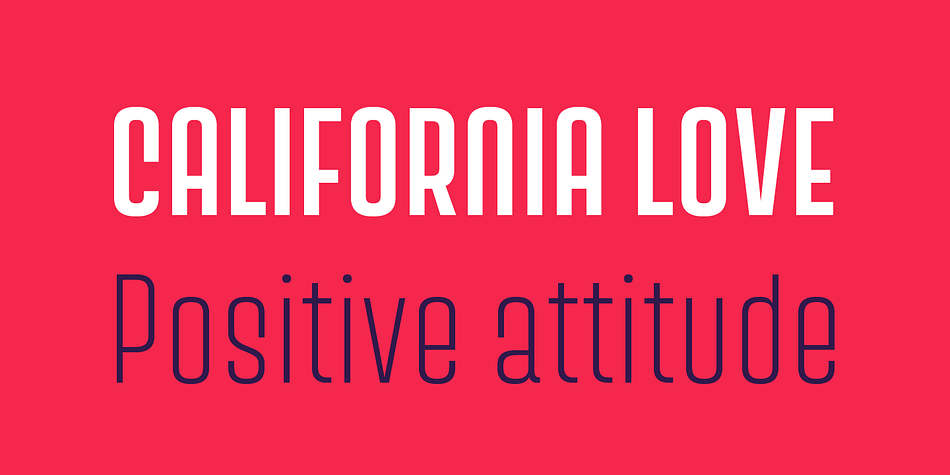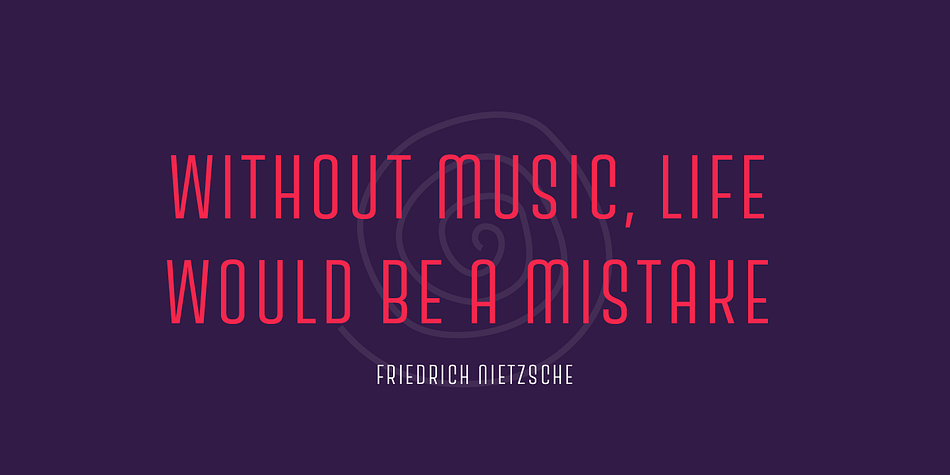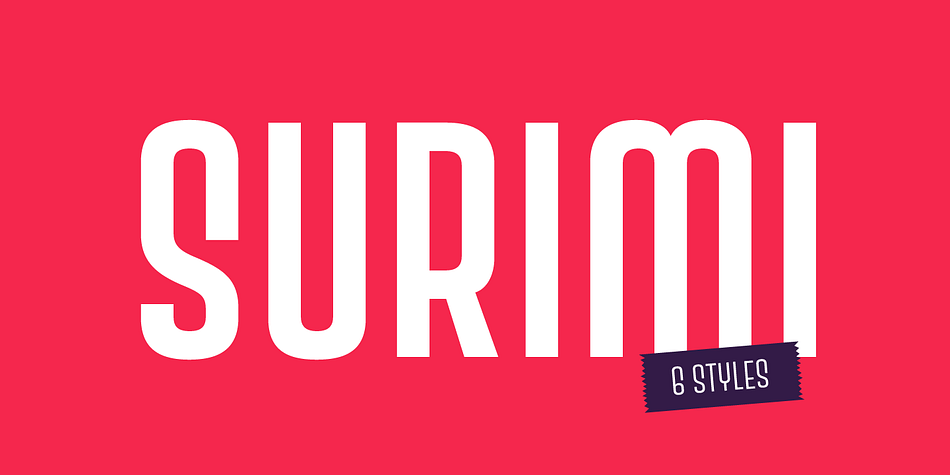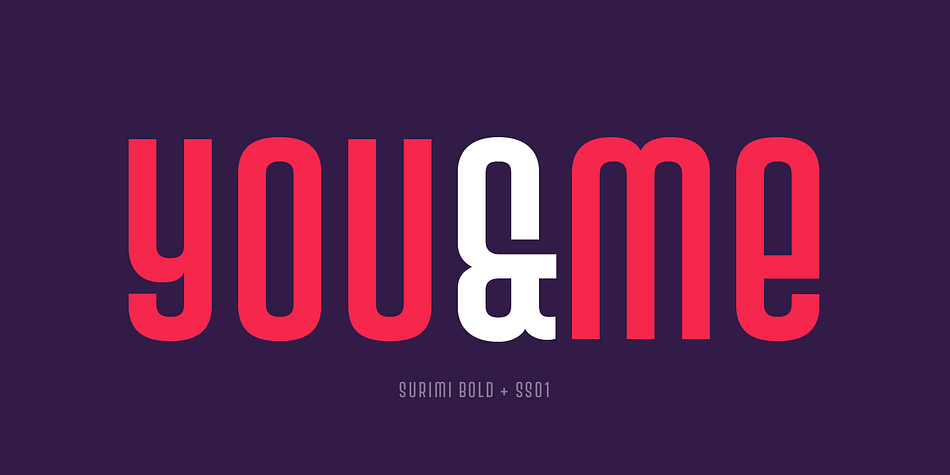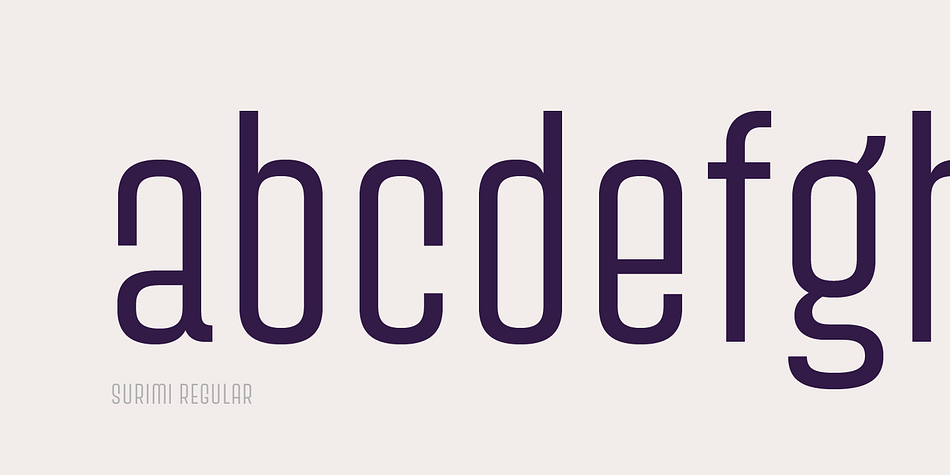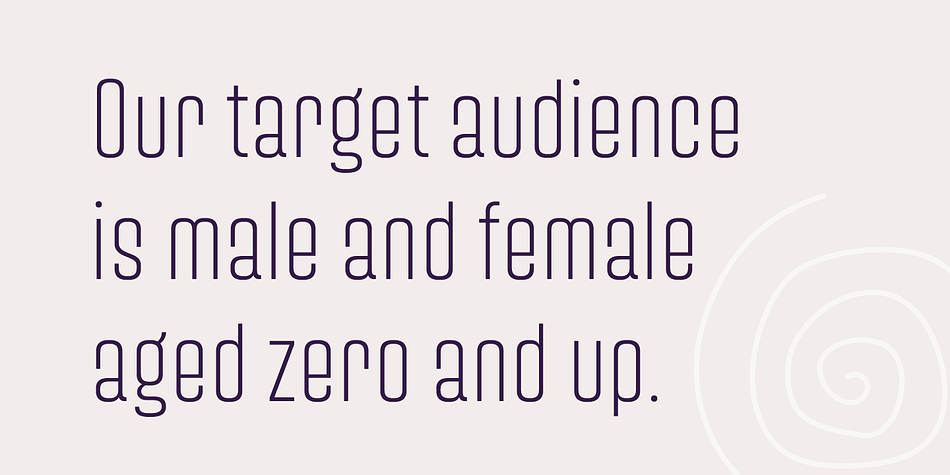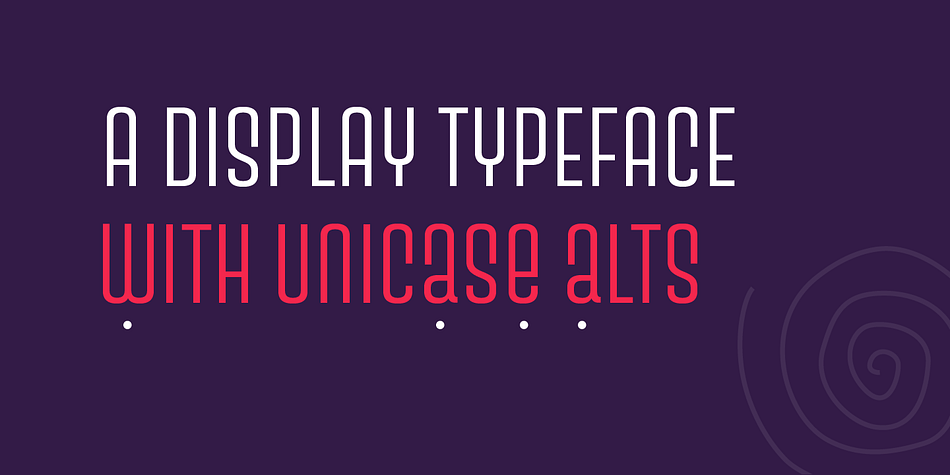
Designed by Joël Carrouché, Surimi is a display sans font family. This typeface has six styles and was published by JCfonts.
Surimi is a condensed display typeface available in six styles.
Designed to stand out with its low crossbars and its unicase alternates, this cool little family will be great for titling and logotypes.
The fonts include diacritics for western European langages, tabular and proportional figures, and 4 stylistic sets :
ss01 : unicase alternates (A,E,W,Y)
ss02 : alternate lowercase g
ss03 : alternate lowercase l
ss04 : alternate W and w